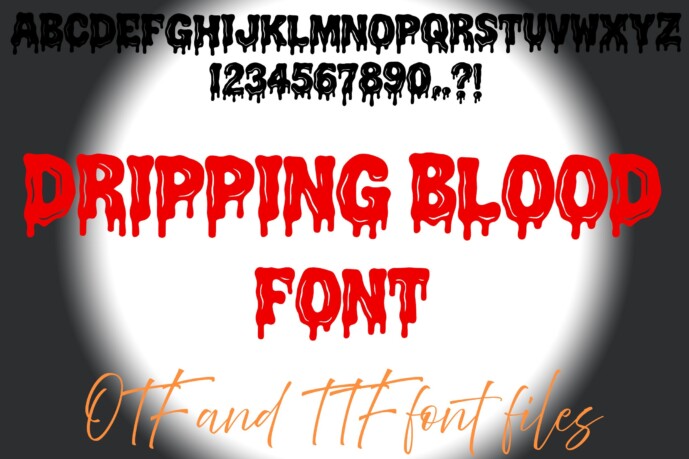
Dripping Blood Font
Designer: squeebcreative
Dripping Blood Font is a spine-chilling decorative typeface perfect for horror-themed designs, Halloween parties, creepy posters, haunted houses, and spooky merchandise. Its gooey, blood-dripping appearance instantly evokes fear and excitement, making it a must-have for designers looking to create dramatic, eerie visuals. This font comes in both OTF and TTF formats for full compatibility.